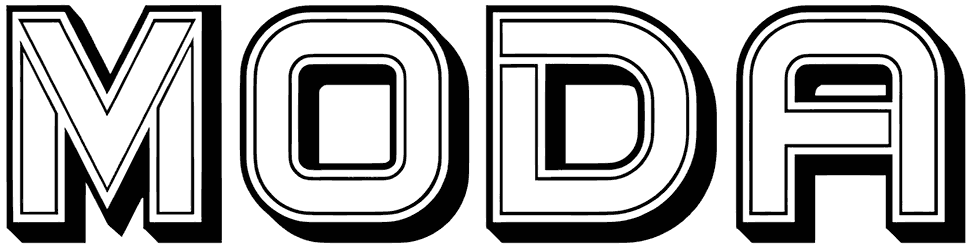
Moda Font
Moda is a geometric font for designing logos and packaging goods in businesses active in the field of technology and sales of tools. This serious and regular font can execute engineering and mathematical designs well. Of course, you should know that this font does not include lowercase letters and numbers; for this reason, it is only used for headlines or logotypes.